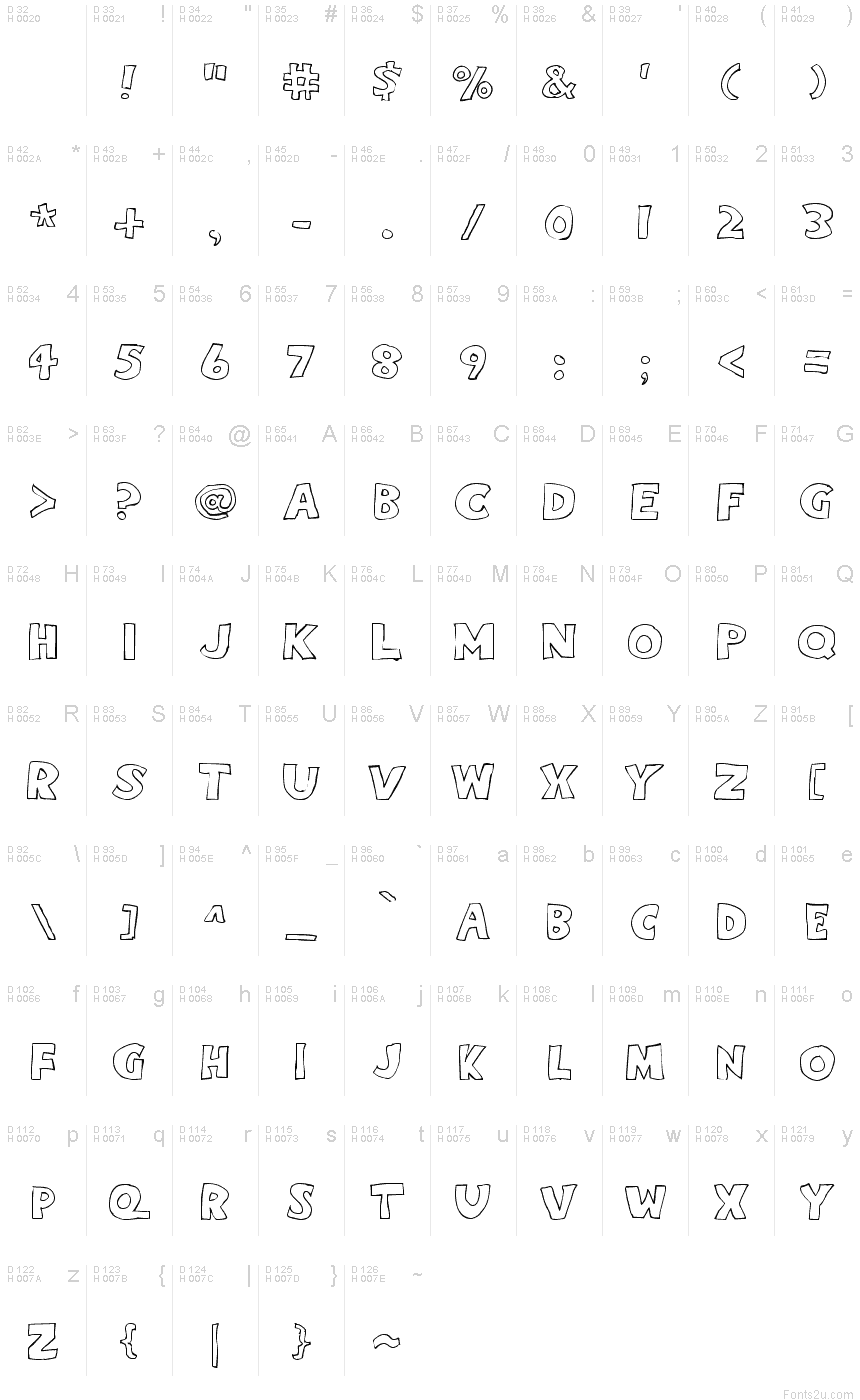
Eighty Percent Caps Outline
Eighty Percent Caps Outline font by Tepid Monkey Fonts is a free outlined display typeface with the looseness of hand-drawn marker letters. Tall, slightly wonky caps wobble inside their sketchy borders, giving every word a playful, doodled edge. The hollow interiors beg to be filled with color, textures, or photos, so headlines feel more like illustrated stickers than plain text.
Using Eighty Percent Caps Outline, your titles pop on kids’ party invitations, classroom posters, comic panels, DIY zines, craft packaging, and social media graphics. This free font shines at large sizes where its quirky outline can really breathe. For a balanced layout, pair it with a simple sans-serif for body copy and let these bouncy caps handle the noisy, attention-grabbing bits.